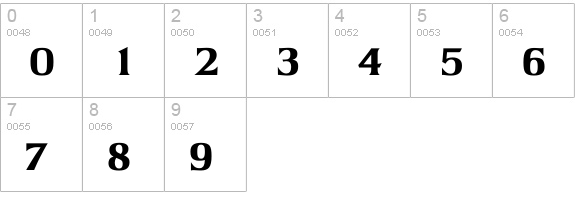
ArgusExBoldTab Font Details
ArgusExBoldTab font is a bold and striking typeface that exudes a sense of power and confidence. Its strong, thick lines make a statement, perfect for headlines, titles, and other attention-grabbing text. The font is designed with precision and attention to detail, resulting in a professional and polished look. What makes ArgusExBoldTab font even more appealing is that it is available for free download at FontsMarket.com. This means that you can easily access this high-quality font without any cost, making it a great option for designers, creatives, and anyone looking to enhance their projects with a bold and impactful typeface. Whether you're working on a print design, digital project, or any other creative endeavor, ArgusExBoldTab font is sure to make a strong impression.